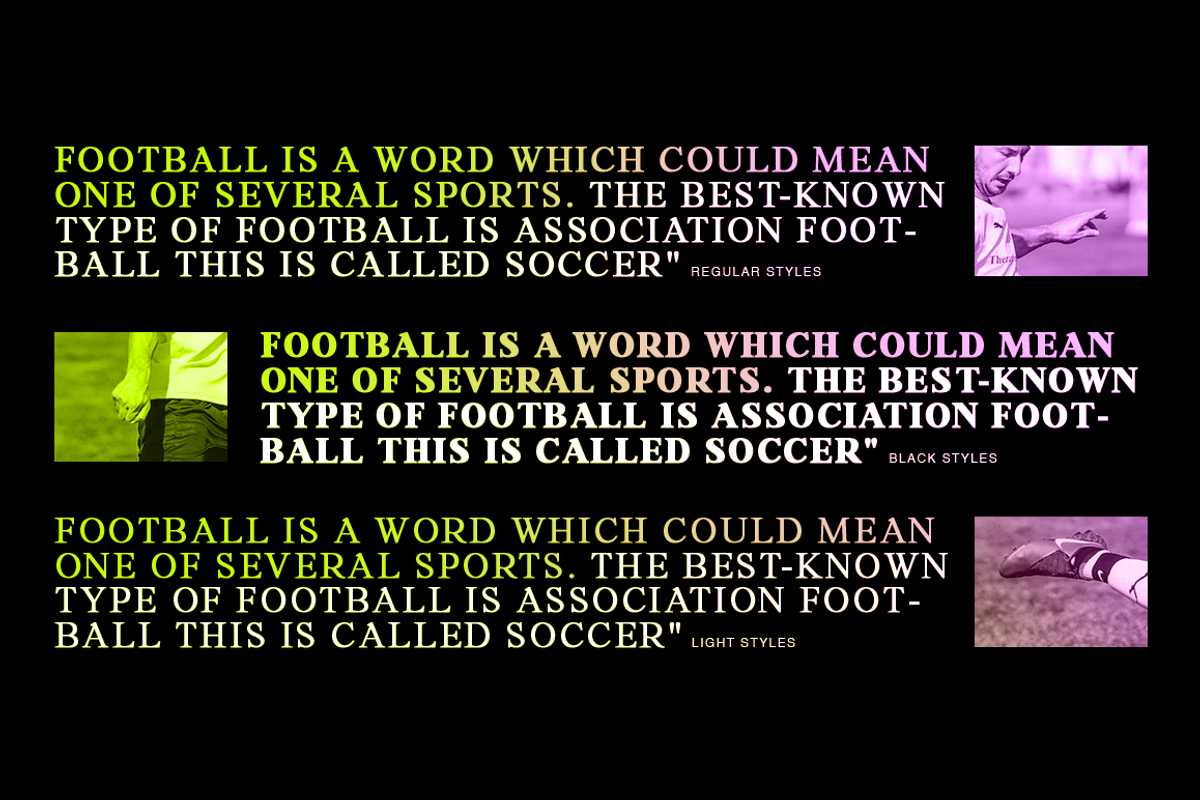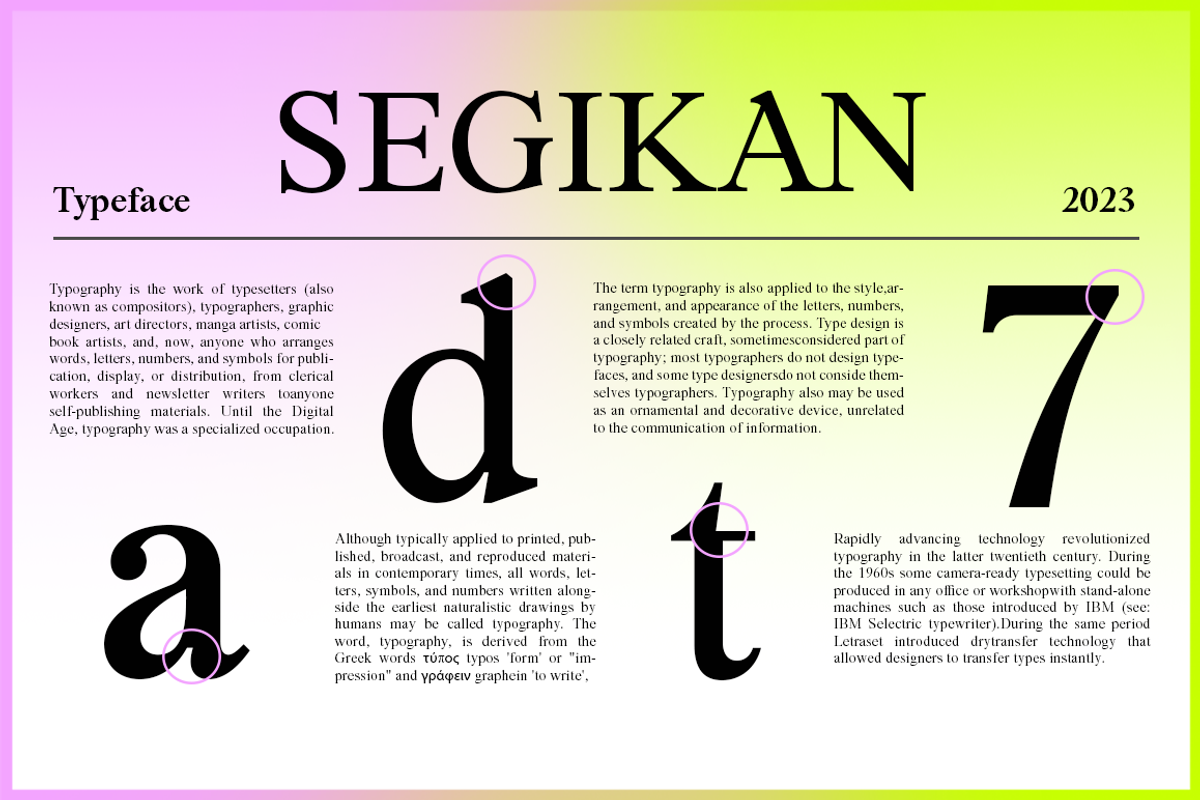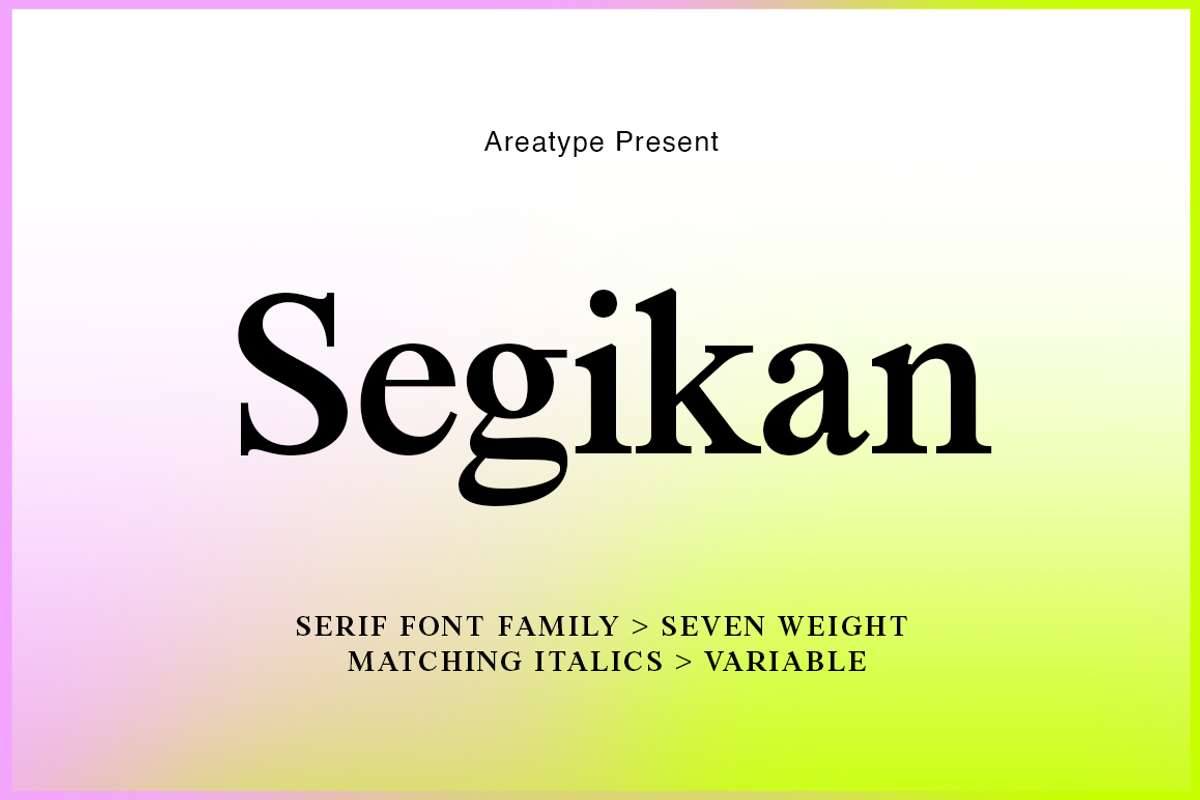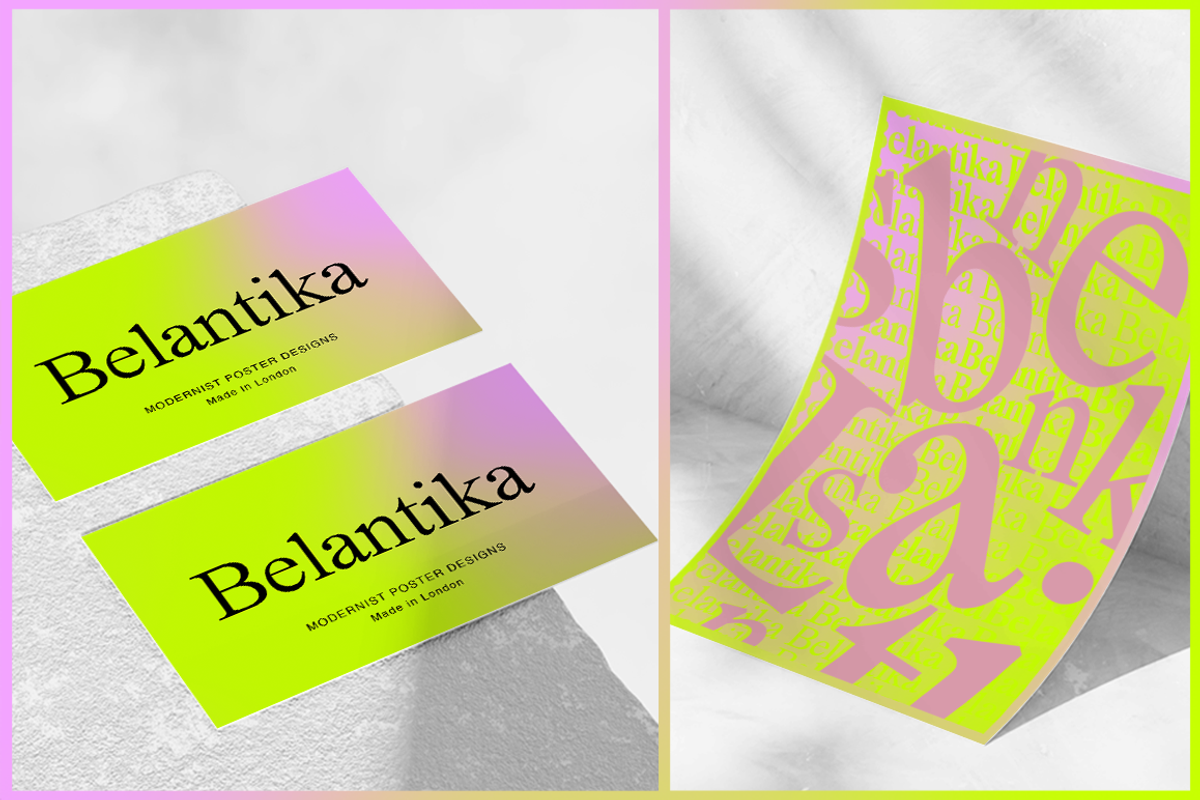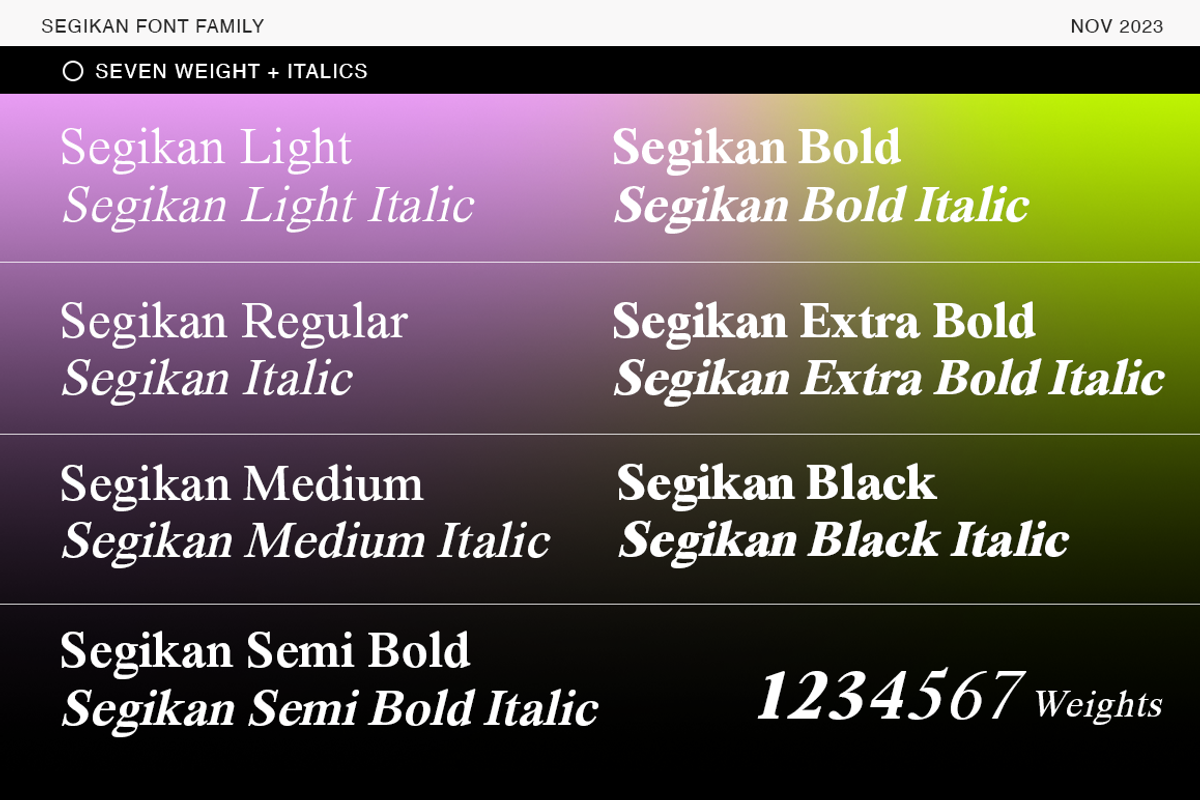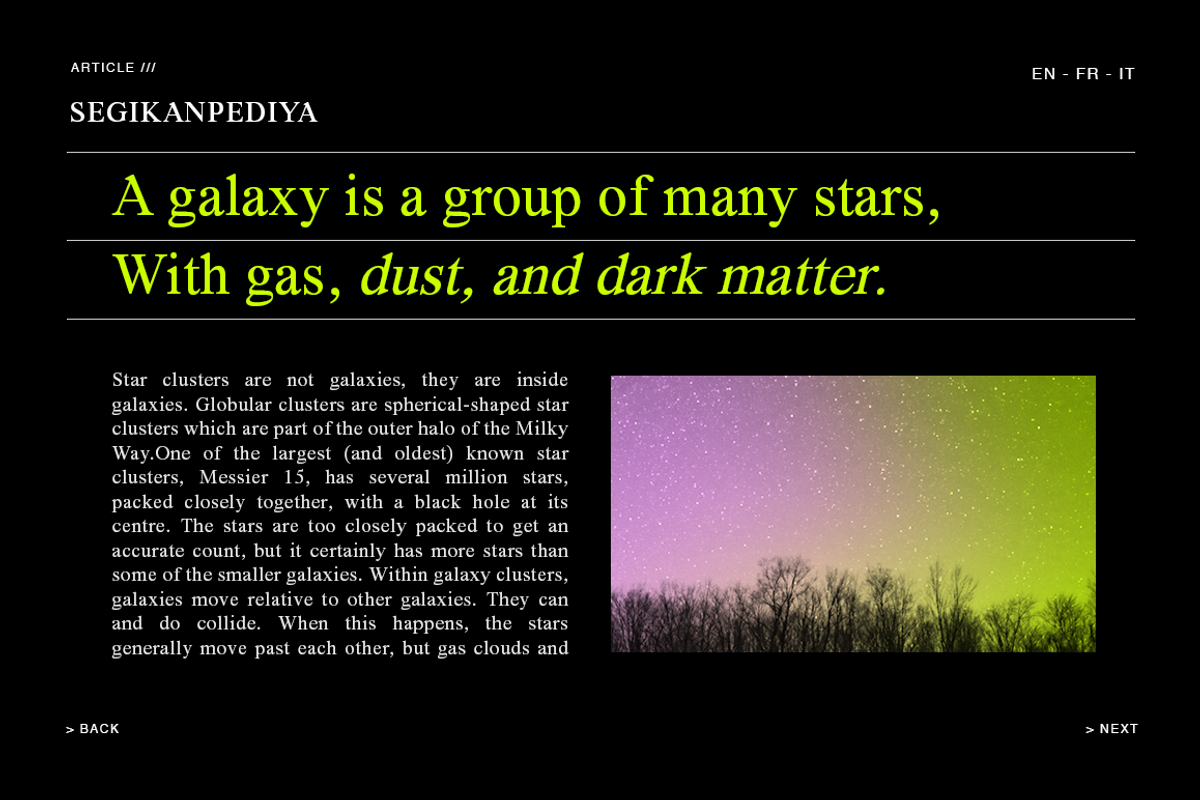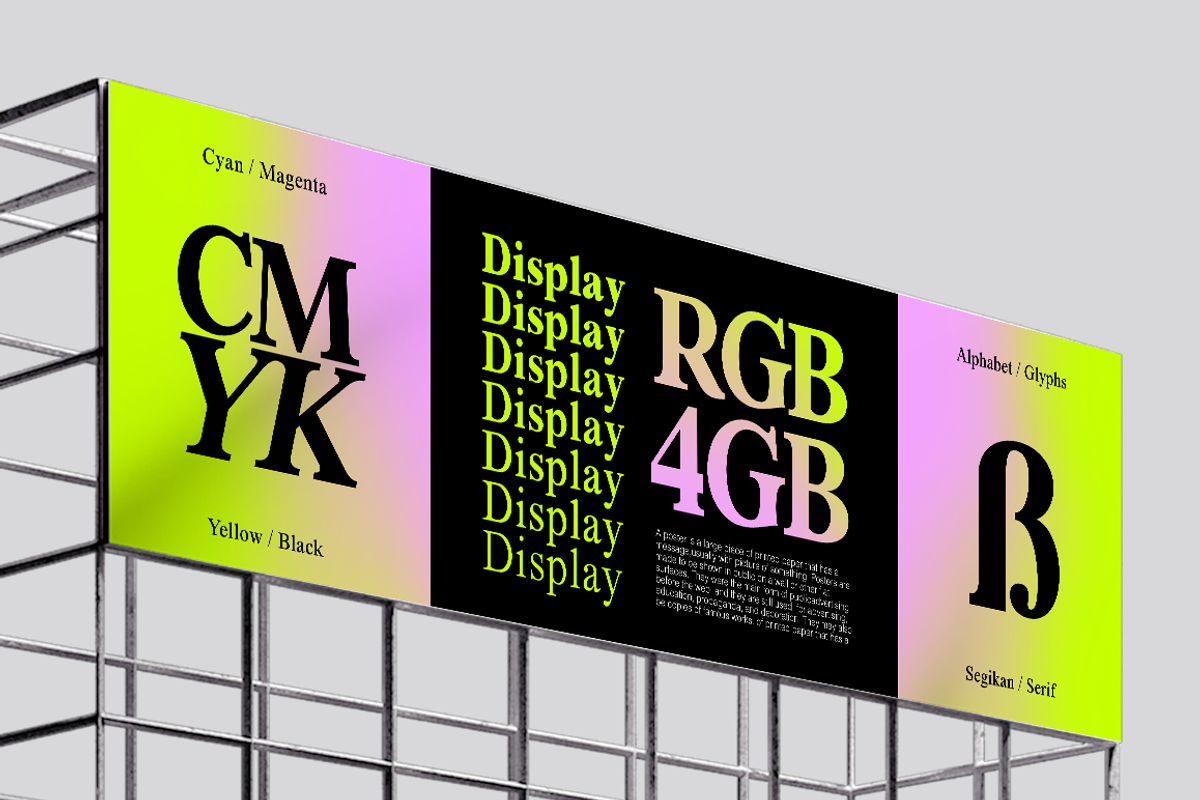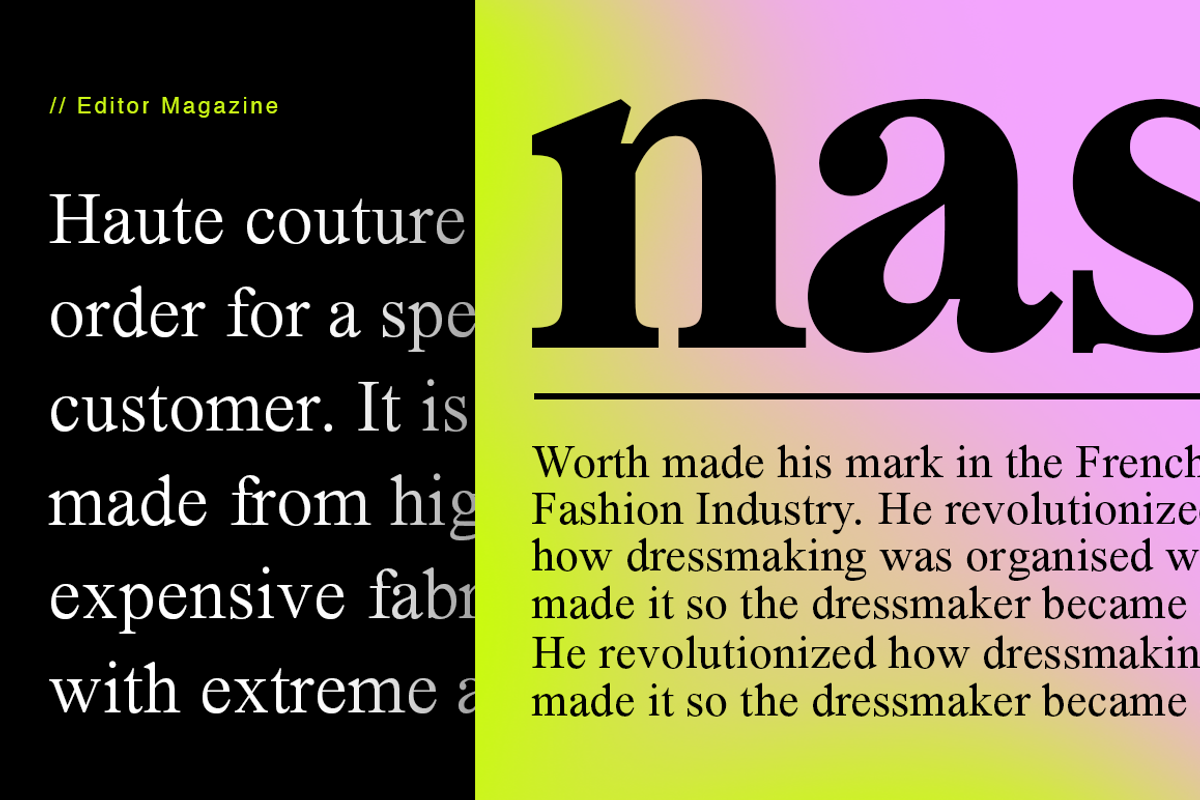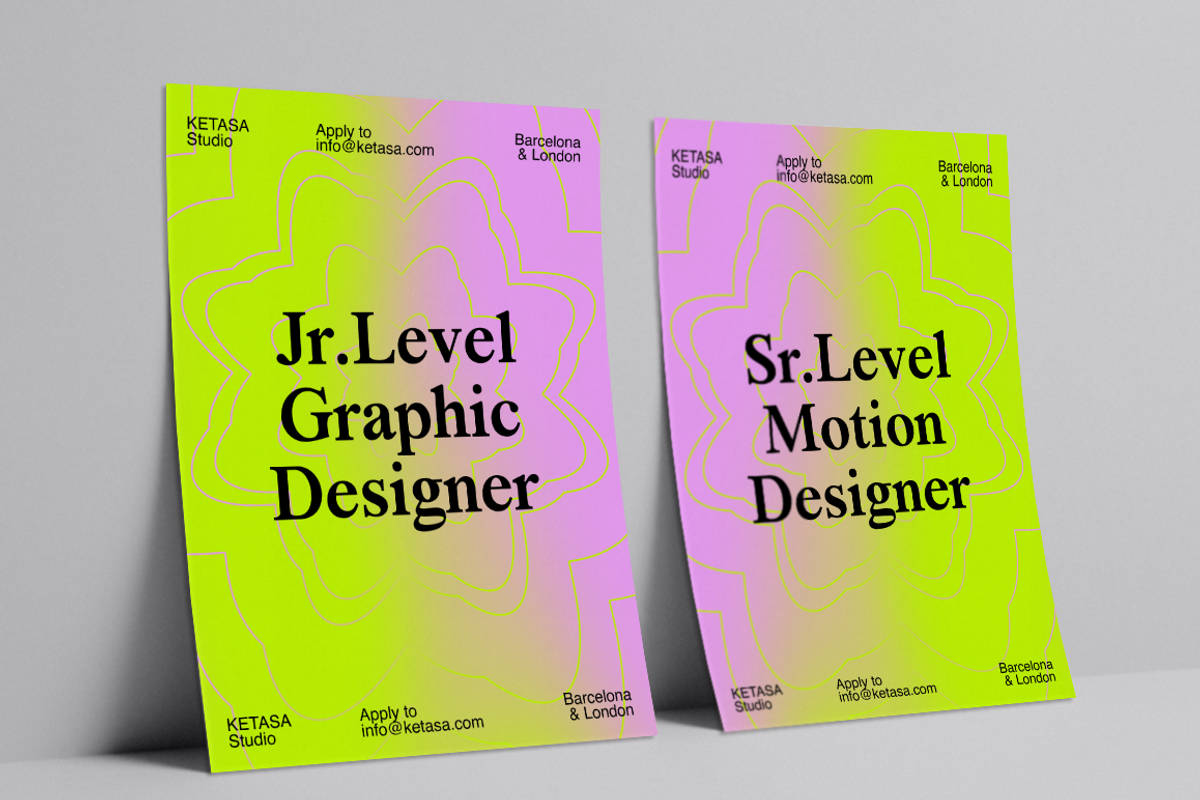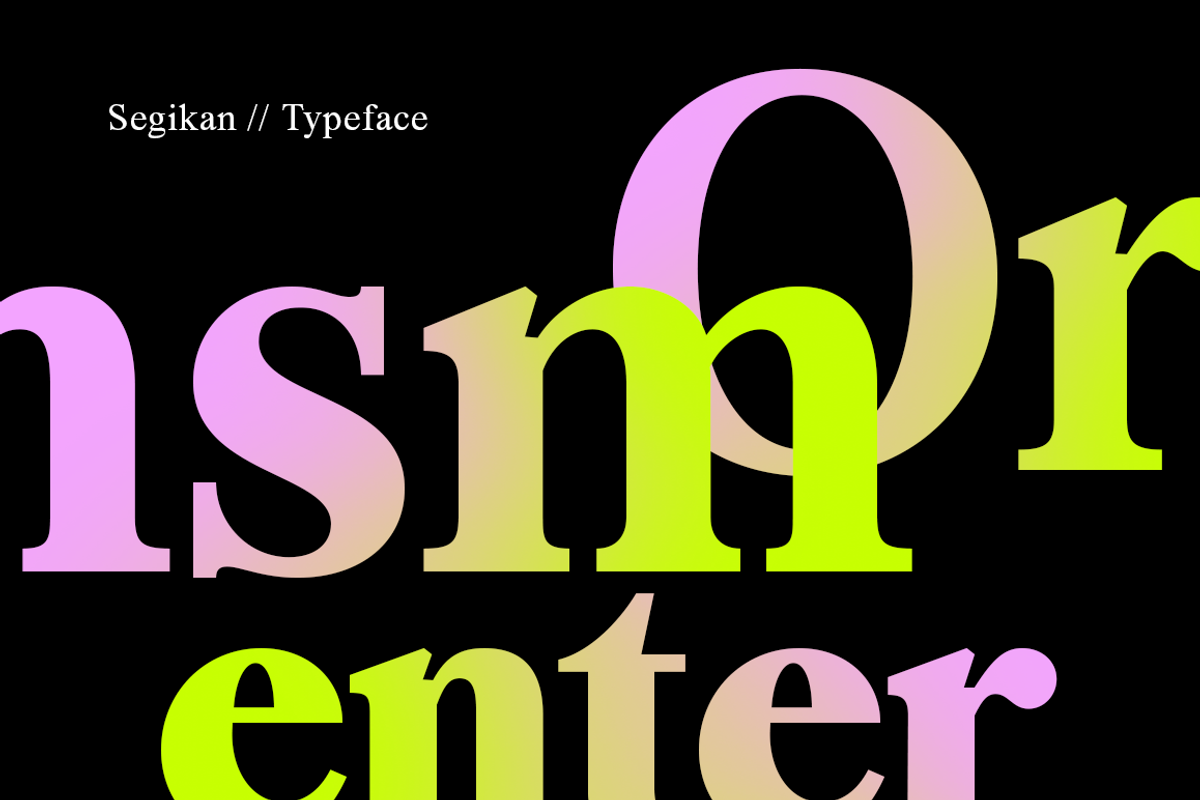
Segikan is a elegant and warm serif typeface with a nuance classic. This typeface was intended to improve upon the legibility.
Included 16 Fonts, upright and slant. From light to black styles. Also included single variable font. OpenType features allow for the implementation of typographic such as ligatures and multiple language support.
Good choice for branding, magazines, posters, advertising, print, packaging, headlines, web design etc.